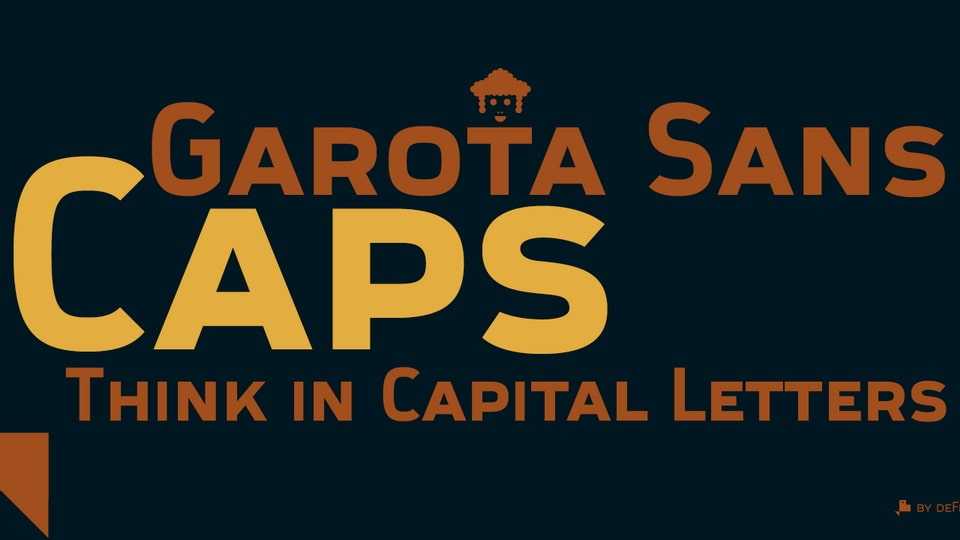
Download Garota Sans Caps font, a typeface distinguished by its slightly narrow proportions and generous metrics, carefully adjusted to ensure a smooth and clear reading experience.
Designer: Fernando Haro